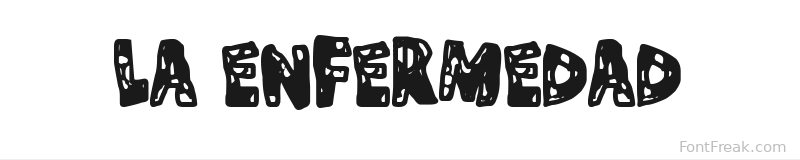
La Enfermedad
La Enfermedad, designed by woodcutter Manero, is a captivating display font that exudes a unique, playful charm. This font falls under the decorative category, characterized by its irregular, hand-drawn appearance that immediately draws attention. The stroke weight varies, creating a dynamic visual rhythm that enhances its quirky aesthetic. Each letter features a distinctive, almost organic feel, with rounded edges and uneven spacing that add to its informal, approachable vibe. The font’s design incorporates subtle decorative elements that evoke a sense of creativity and individuality, making it an ideal choice for various projects.
The La Enfermedad font is perfect for a range of applications. It works exceptionally well for eye-catching movie posters, where its distinctive style can help capture the essence of a film’s theme. Additionally, it can bring a lively touch to restaurant menus, especially for eateries aiming for a casual, fun ambiance. This font is also suitable for children's book covers, where its whimsical nature can engage young readers, and for event flyers, particularly for festivals and art shows. Graphic designers and small business owners will find it particularly useful in crafting memorable brand identities that stand out in competitive markets.